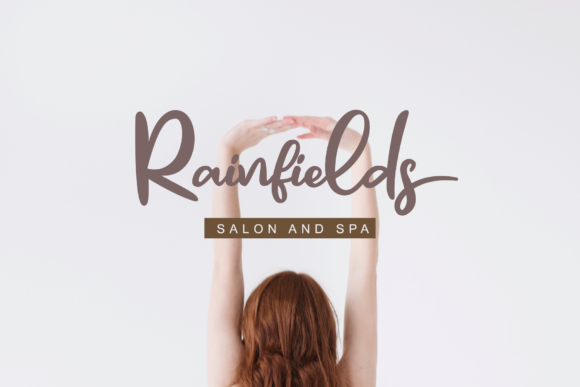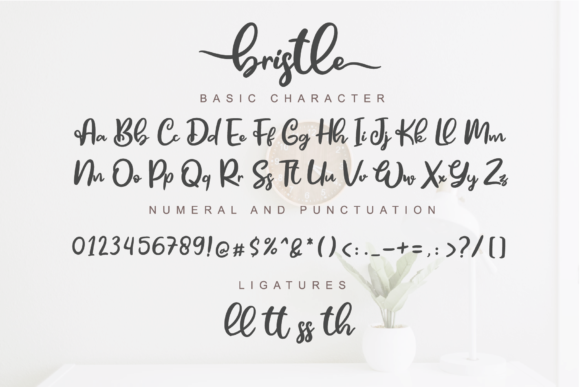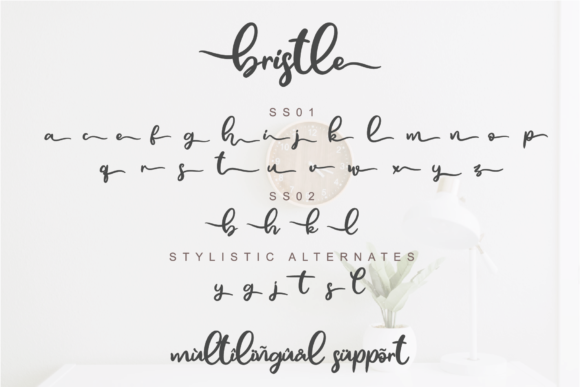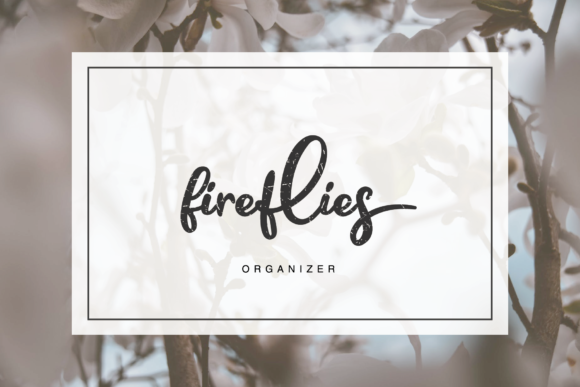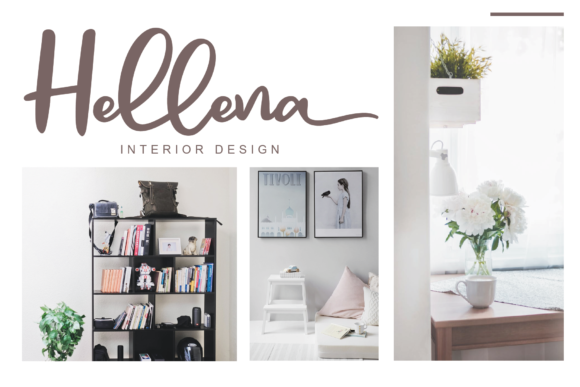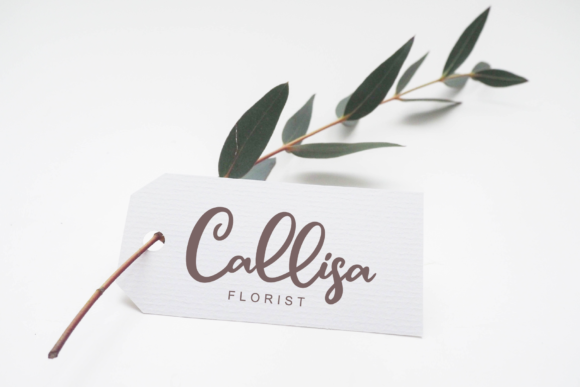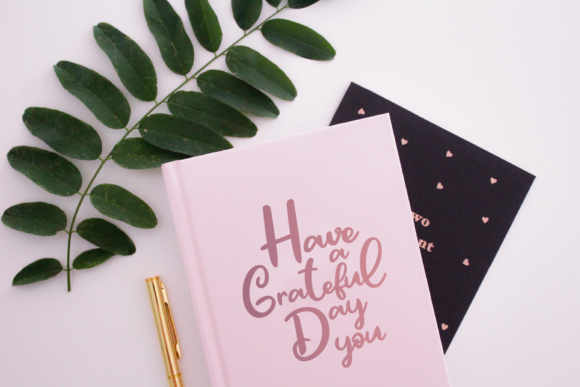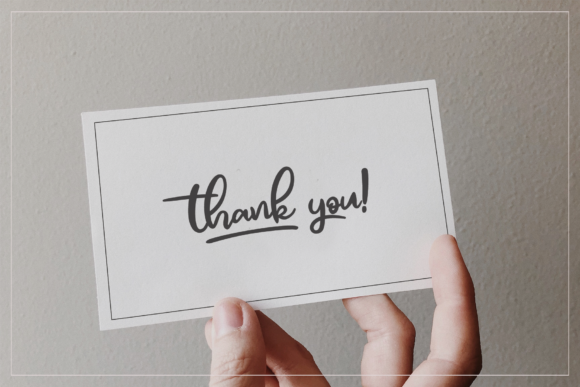
HomeScript FontsBristle Font Script Fonts Bristle Font FacebookXPinterestWhatsApp Bristle Font Poster 2 Bristle Font Poster 3 Bristle Font Poster 4 Bristle Font Poster 5 Bristle Font Poster 6 Bristle Font Poster 7 Bristle Font Poster 8 Bristle Font Poster 9 About Bristle Font Bristle is a beautifully hand-lettered script that will turn any design idea into a true standout! DOWNLOAD ON CREATIVE FABRICAThis font is sold and delivered by Creative Fabrica. Font Canyon may earn a commission if you buy through this link. People also explored Spicy Snack Font Happy Birthday Font Kimberly Daisy Font Albori Font Cinthya Einzberg Font Love Live Font Renaligito Font Wreathing Font Amelia Script Font 310 0 TagsBristle Font Previous articleCharlotte FontNext articleMalyka Font LEAVE A REPLY Cancel reply Comment: Please enter your comment! Name:* Please enter your name here Email:* You have entered an incorrect email address! Please enter your email address here Website: Save my name, email, and website in this browser for the next time I comment. Personal Use Free Baby Cute Personal Use Free Read more about this font BD Alm Personal Use Free Read more about this font Starborn Font Personal Use Free Read more about this font Masha Song Personal Use Free Read more about this font BLOG The 10 Best Handwriting Fonts to Add Personality to Your Designs 10 of the Best Handwriting Fonts for Adding Personality to Your Designs There will undoubtedly be no other better choice than handwriting fonts to give... Top 7 Google Fonts Alternatives for Faster and Privacy-Friendly Web Design (2025) How to Install and Use Fonts on Windows, macOS, and Web Projects To increase your work productivity, choose the most readable fonts.